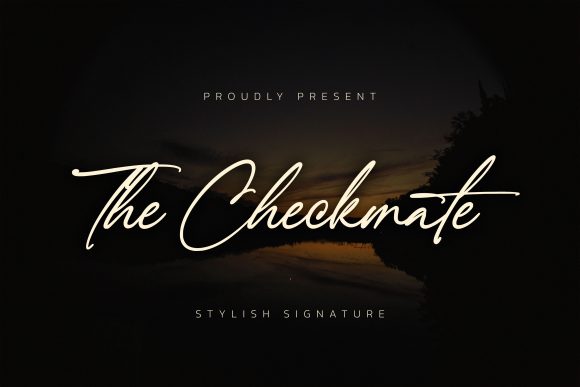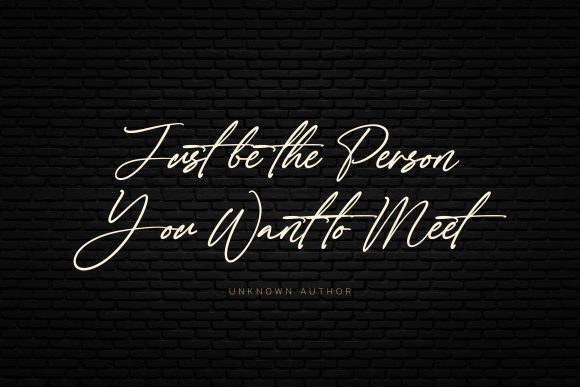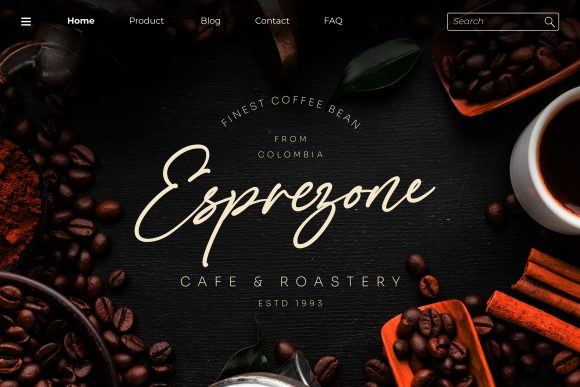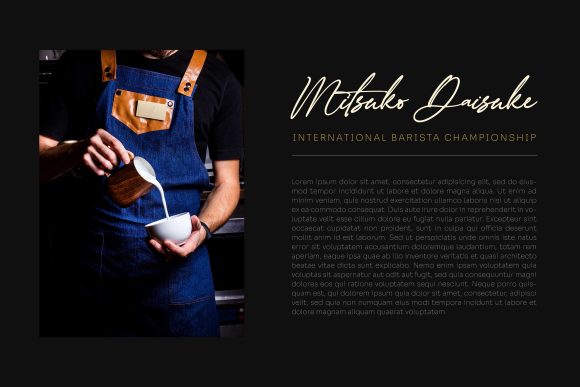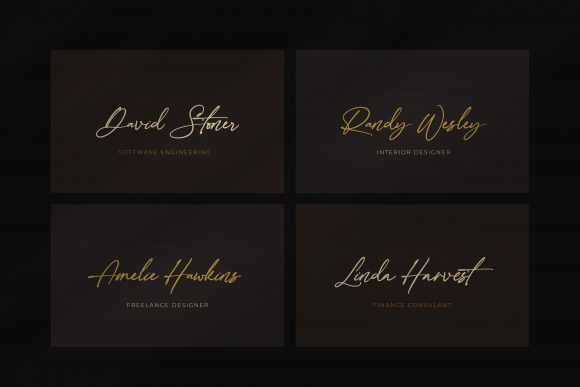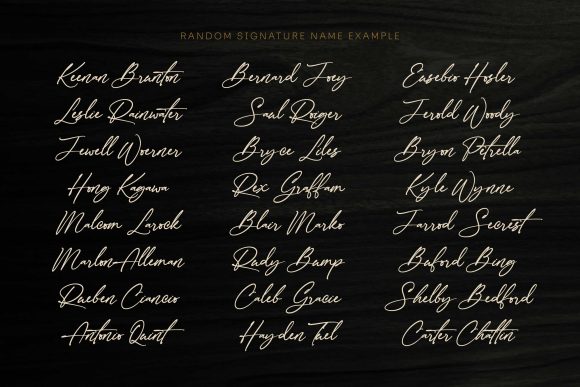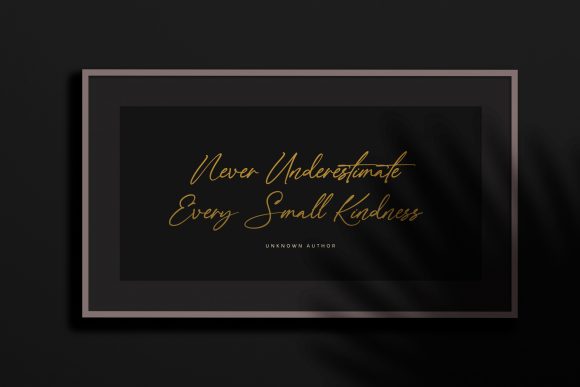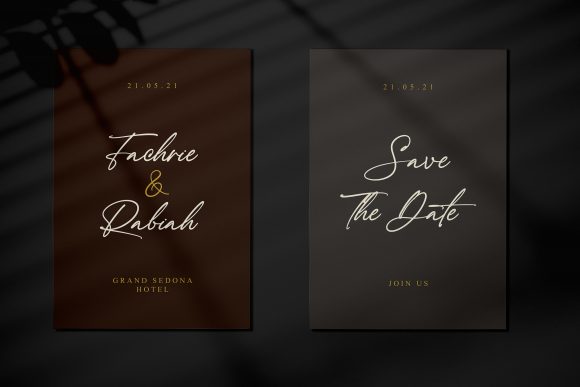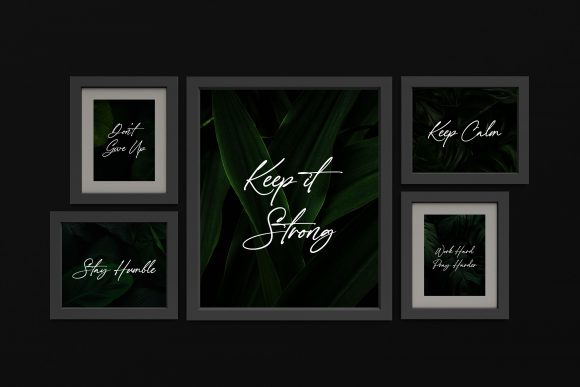
The Checkmate Font
About The Checkmate Font
The Checkmate is a delicate, elegant and flowing handwritten font. It has beautiful and well balanced characters and as a result, it matches a wide pool of designs. The Checkmate features a varying baseline, smooth lines, gorgeous glyphs and stunning alternates.